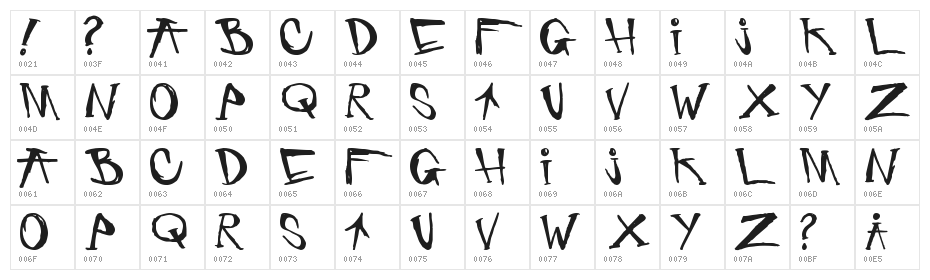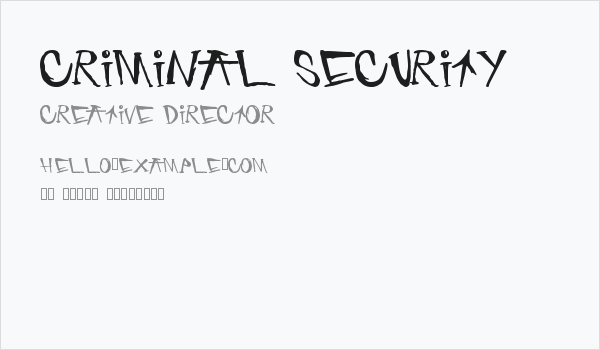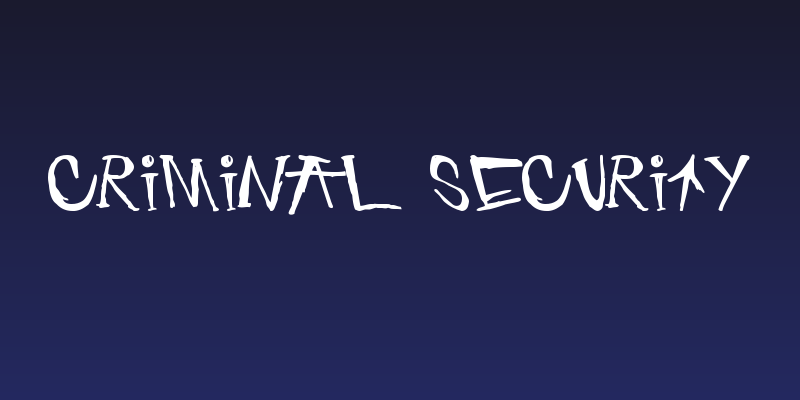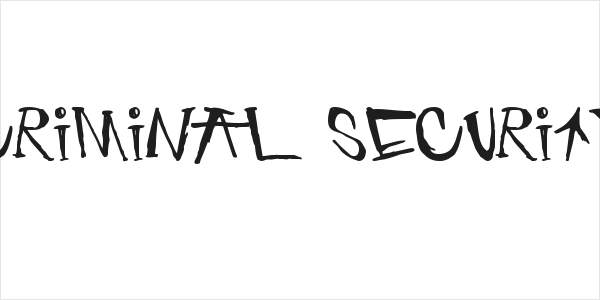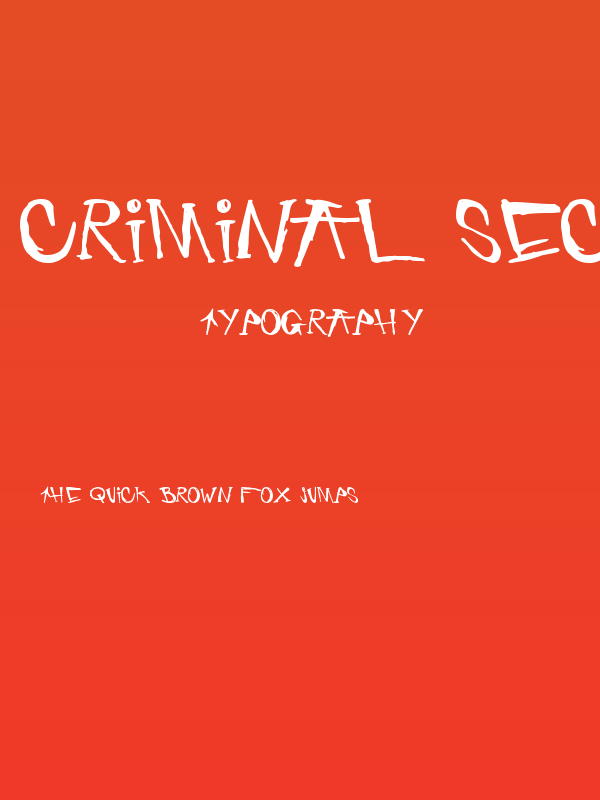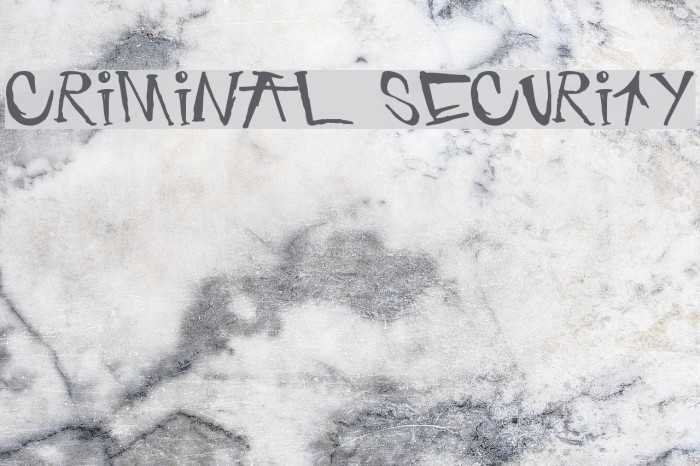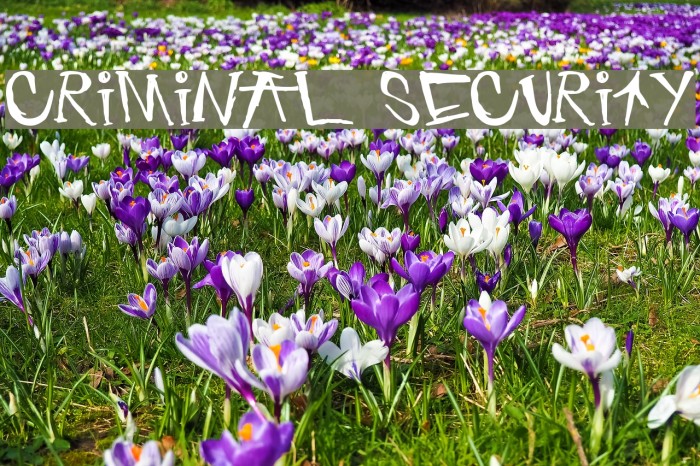
criminal security Font
criminal security Description
This font features a bold and edgy design, characterized by sharp, angular strokes and a slightly chaotic appearance. The uppercase letters exhibit a dynamic and aggressive style, with irregular line thickness that adds a sense of movement and energy. The lowercase letters maintain this energetic feel, though they are slightly more restrained. The numbers and special characters follow the same bold and expressive design, making them stand out prominently. This font's unique style is reminiscent of graffiti or street art, giving it a rebellious and unconventional vibe.
| Overall Style | Modern, Urban, Graffiti |
| Use Case | Logos, Posters, Headlines |
| Proposed Projects | Ideal for projects that require a rebellious or urban aesthetic, such as streetwear branding, music album covers, or event posters. |